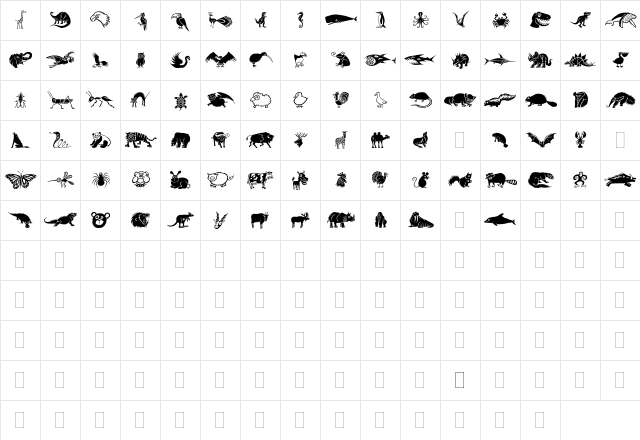
DF Wildlife Plain
Design Context for DF Wildlife Typeface
DF Wildlife is a composed and adaptable typeface that performs quietly and consistently across a wide range of design contexts.